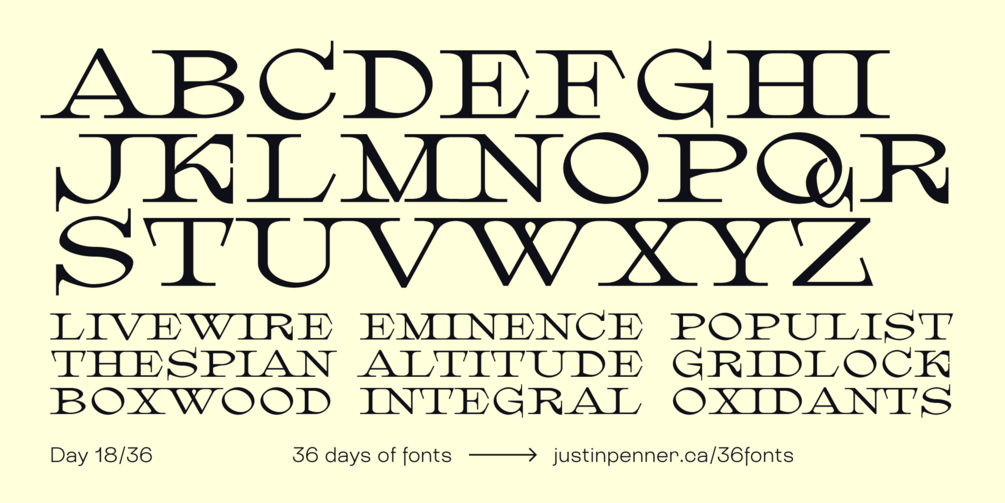
36 Days of Fonts: Day 18
Vibrissa
If you're a type nerd, you might recognise this style. I used no references for this, but I was thinking about some really wild lettering styles like Ogg by Sharp Type, and some others I can't recall the names of right now. I really like how it turned out, and it was fun exploring some new calligraphy-based techniques with this design.